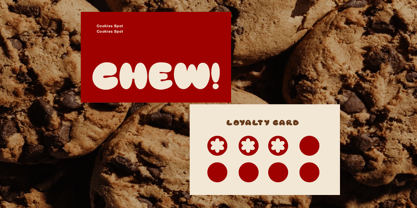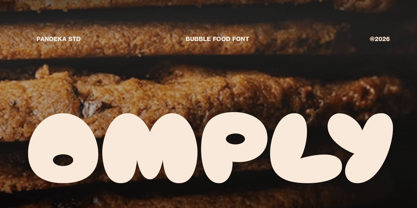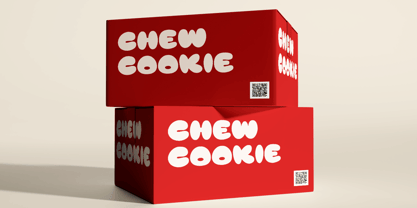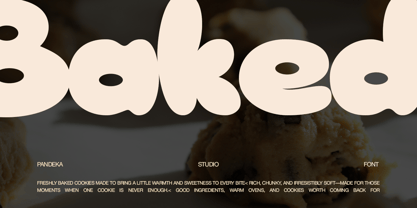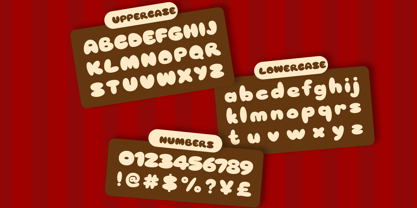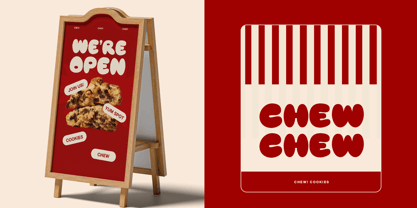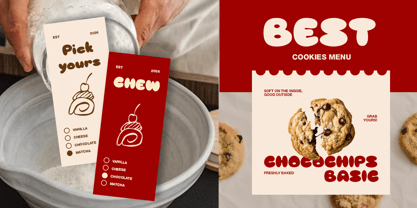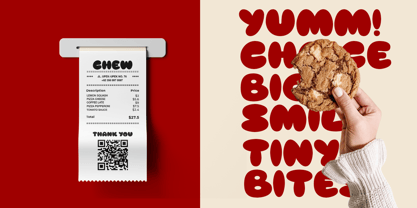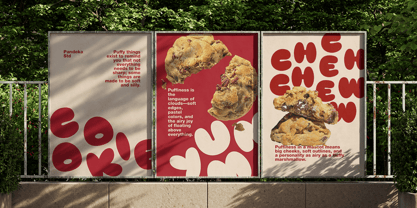
Omply
by Pandeka Studio
The Omply Font Family was designed by Sagara Nararya and published by Pandeka Studio. Omply contains 2 styles and family package options. More about this family
Omply is a playful bubble font designed to bring a soft, bold, and cheerful personality to food-related designs. Featuring rounded, chunky letterforms with smooth curves and a friendly appearance, it creates an eye-catching visual style that works especially well for cookies, bakeries, desserts, cafés, and fun food branding.
Available in 2 styles: Regular and Oblique, Omply is suitable for food logos, bakery branding, cookie packaging, dessert labels, menu designs, posters, signage, social media graphics, promotional materials, product packaging, stickers, food trucks, and playful brand identities. Its bold and bubbly forms add a fun, youthful touch to both print and digital designs.